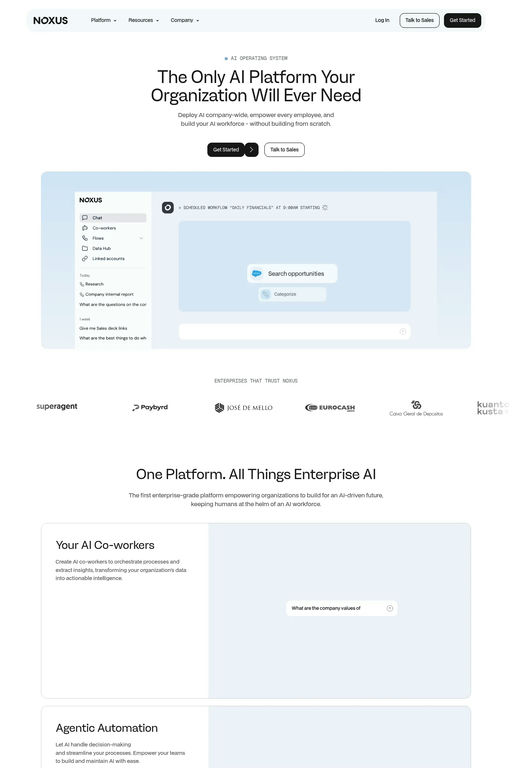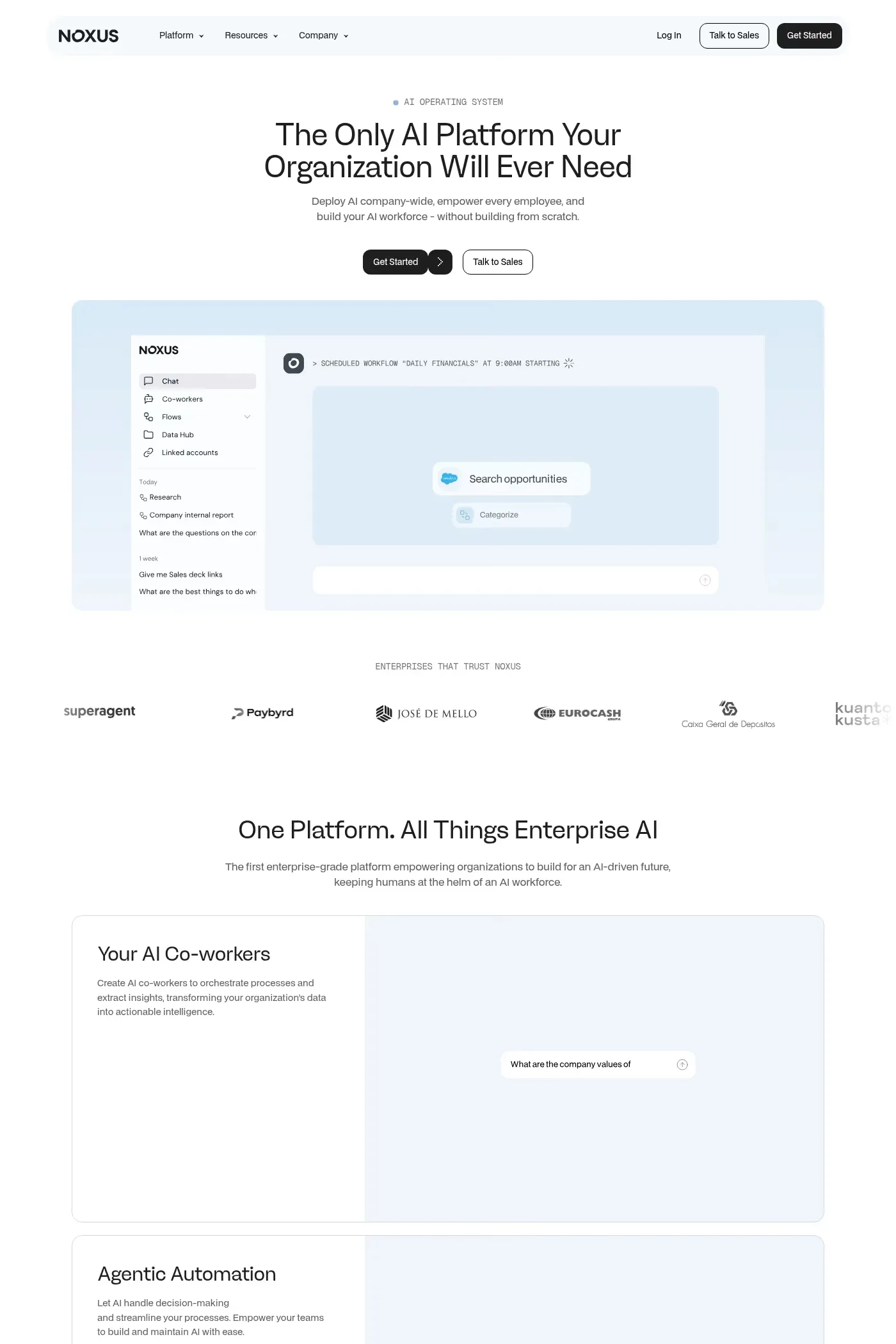
Ginka is a serif typeface from Lift Type.
Ginka is a playful and asserting grotesk typeface. Thanks to the duality of the design of this family it’s possible to have a really good texture in text, but also quirky and specific aesthetics in large sizes for posters!